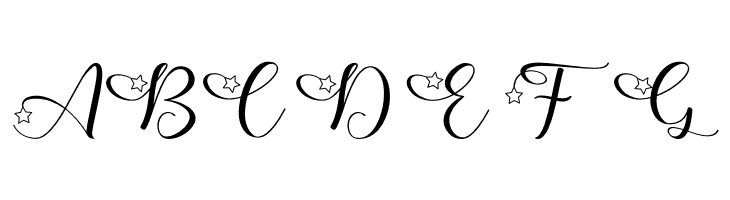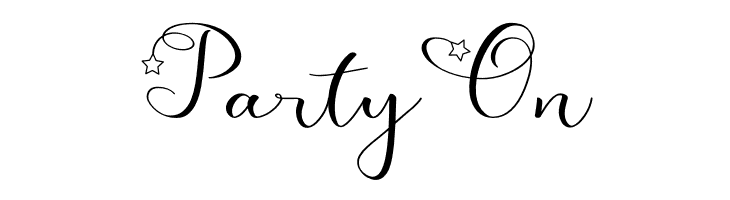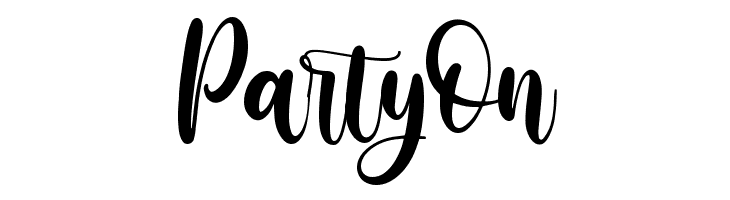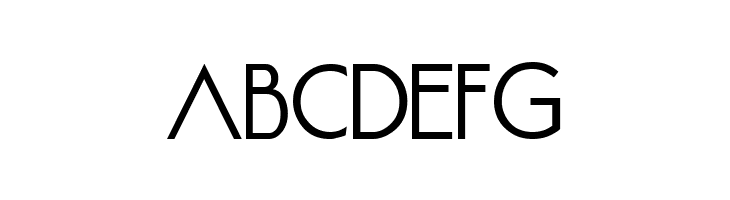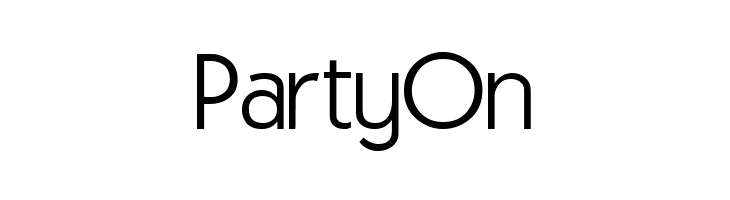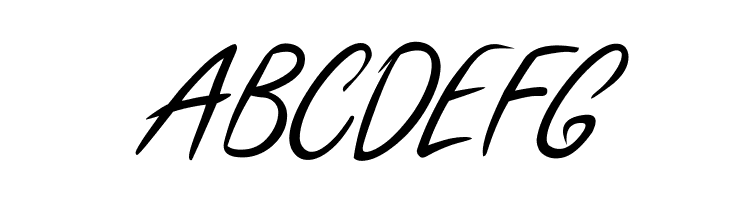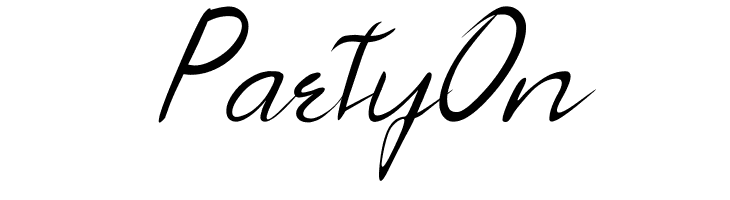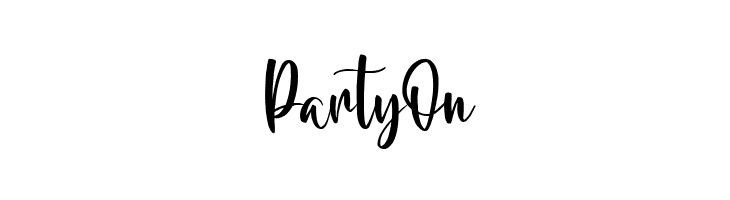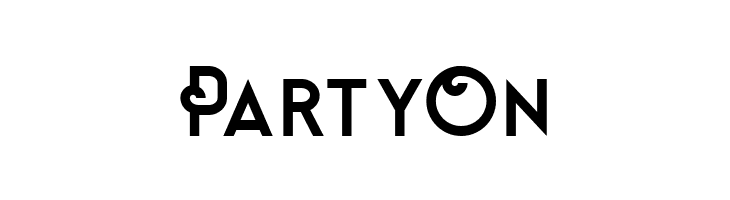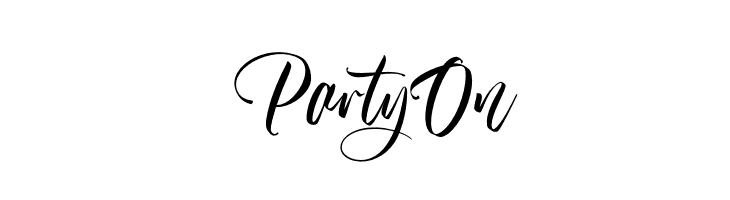
• Almara
An elegant script font with fluid, cursive strokes and a sophisticated appearance.
• Almatter Hustle
A lively, handwritten font with fluid strokes and artistic flair.
• Almaz_Demo Regular
A modern, geometric sans-serif font with clean lines and high legibility.
• Almeda
A decorative and modern font with whimsical uppercase and bold lowercase letters.
• Almeera
A dynamic, elegant script font with flowing, cursive elements.
• Almeida Regular
A lively and expressive script font with flowing, cursive letterforms.
• almeira
A modern, cursive font with elegant, flowing letterforms and artistic flourishes.
• almeira
A flowing, elegant script font with artistic, cursive strokes.
• Almelostar
An elegant script font with whimsical flourishes and decorative elements.
• Almere Script
A lively and elegant script font with fluid, sweeping strokes.